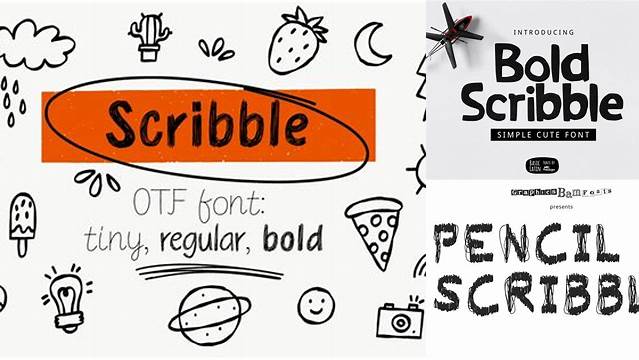
Free Bold Scribble Font Download Guide
Hey guys! Are you on the hunt for a font that screams personality, a font that's got that handwritten vibe but with a bold and undeniable presence? Well, you're in luck! This article is your one-stop shop for everything about the bold scribble font, including how to get your hands on a free download and start using it to make your designs pop. Whether you're a seasoned designer, a budding enthusiast, or just someone who loves cool fonts, this guide has got you covered. We'll dive into what makes this font so awesome, where to find it, how to install it, and even some creative ideas to get you inspired. So, buckle up, because we're about to embark on a font-tastic adventure!
What Makes the Bold Scribble Font So Special?
So, what's the big deal about the bold scribble font, anyway? Why should you care? Well, let me tell you, it's more than just letters on a screen. It's about capturing a feeling, an emotion, a certain je ne sais quoi. This font style is all about that raw, authentic feel of a handwritten note or a quick sketch. But unlike your average handwriting, the bold scribble font takes it up a notch. It's got weight, it's got impact, and it's designed to grab attention. This font is your secret weapon for creating designs that feel personal, approachable, and anything but boring. Imagine a logo that looks like it was drawn just for your brand, a headline that leaps off the page, or social media graphics that stop the scroll. That's the power of the bold scribble font! This font can transform your digital presence to feel more human. You're not just using a font; you're injecting personality into your projects, giving them a unique voice that stands out from the crowd.
Think about it – the world is filled with generic fonts. But the bold scribble font is different. It’s imperfect in the most perfect way. It embraces the slight variations and quirks that make handwriting so charming. It's like a digital hug for your designs, making them feel warm, friendly, and utterly irresistible. Whether you're working on a website, a poster, a social media post, or even a wedding invitation, this font can bring a touch of whimsy and a whole lot of character. The best part? It's incredibly versatile. It can be used in a wide range of projects, from branding and marketing to personal projects and creative endeavors. It’s suitable for a variety of uses, the font has a certain charm that fits any aesthetic. So if you're looking to add a touch of fun, playfulness, and personality to your designs, then look no further. The bold scribble font is your new best friend!